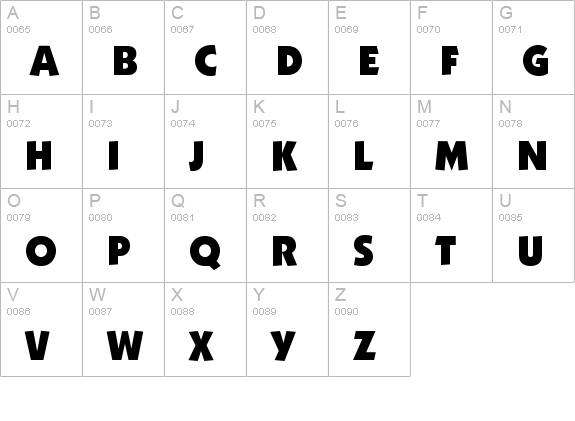
Koblenz-Heavy is a heavy, high-impact variant in the Koblenz typeface family \xE2\x80\x94 well suited to high-impact headlines, posters, and display advertising.
Koblenz-Heavy font is a bold and impactful typeface that exudes strength and confidence. With its thick, sturdy letterforms and sharp angles, Koblenz-Heavy commands attention and makes a statement in any design project. Whether you're looking to create eye-catching headlines, striking logos, or powerful posters, this font is sure to leave a lasting impression. What's even better is that Koblenz-Heavy is completely free to download at FontsMarket.com. That's right, you can add this versatile and stylish font to your collection without spending a dime. So why wait? Elevate your designs with the bold and beautiful Koblenz-Heavy font today!